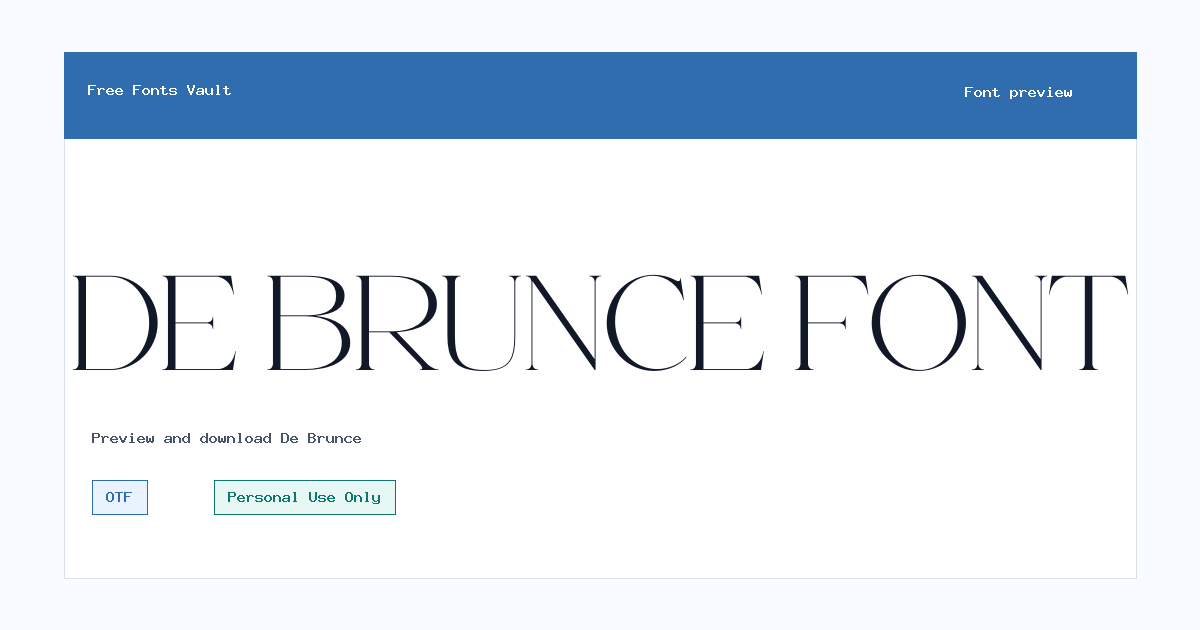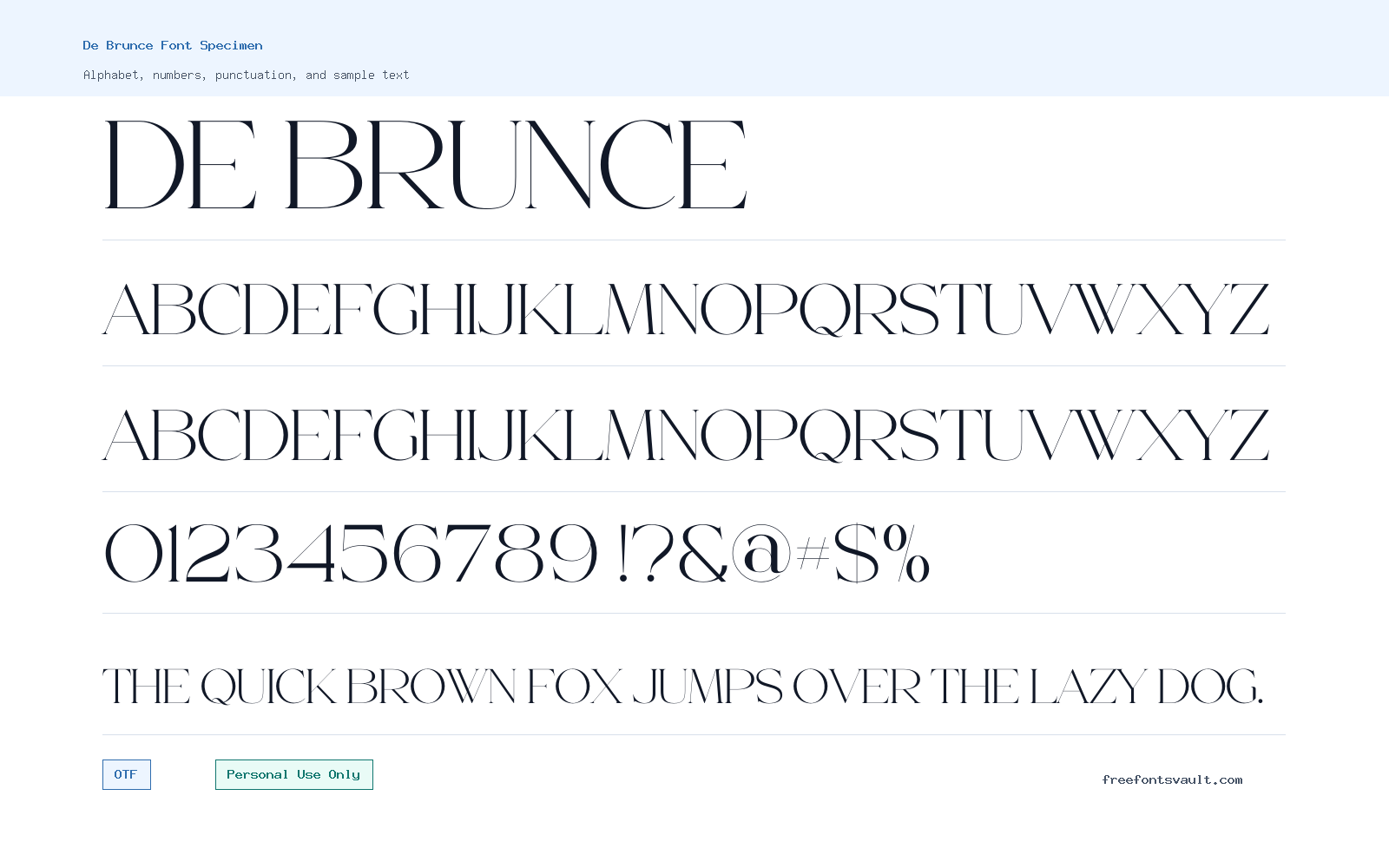
De Brunce
De Brunce font preview showing the family name
De Brunce Font
De Brunce font specimen showing alphabet, numbers, and sample text
• Designer Biham Santoso
De Brunce font.
De Brunce is a serif font family by Biham Santoso with regular and italic OTF styles. It is best approached as a display font for expressive titles, branding drafts, posters, and visual concepts where the lettering needs more character than a plain text face.
About De Brunce Font
De Brunce has the kind of serif structure that works well when a design needs a refined but noticeable voice. Because the family includes both upright and italic styles, you can build simple hierarchy without switching to a completely different font. Use the regular style for names, headlines, label text, and short statements, then bring in the italic style for accents, subtitles, quotes, or supporting words that need a softer angle.
This font is most useful in short-form design work. Try it in the preview box with brand names, poster headlines, invitation wording, product mockups, packaging concepts, social graphics, and editorial-style titles. For logo work, test the full name in uppercase, title case, and lowercase before committing, because decorative serif details can change the rhythm of a word. For longer paragraphs, pair De Brunce with a clean sans serif or a quiet text serif so the main message stays easy to read.
• Regular and italic styles for simple display hierarchy
• Serif letterforms suited to titles, names, posters, and branding drafts
• Works best in short text where the shape of each word can stand out
• Logo concepts and brand name mockups
• Poster titles and event graphics
• Editorial-style headings
• Packaging and label design drafts
• Invitation or announcement text
• Social media quote cards and promotional visuals
• Website hero headings and web layout mockups
• Moodboards, presentations, and client concept previews
De Brunce is credited to Biham Santoso. No foundry name or official designer link is listed, so avoid adding extra origin, trademark, or studio claims without confirmation.
Use De Brunce where the words are meant to be seen, not hidden inside long reading text. Start with short headlines, names, or two-to-five-word phrases. If you are making a logo, check spacing between difficult letter pairs and test the mark at small sizes. If you are designing a poster or web hero, keep the background simple and give the letters enough room. For pairing, choose a neutral sans serif for body copy, captions, menus, and descriptions; this lets De Brunce carry the visual tone without making the whole layout feel busy.
What styles are included with De Brunce?
The family has a regular upright style and an italic style, both in OTF format.
Who designed De Brunce?
De Brunce is credited to Biham Santoso.
What is De Brunce best used for?
It is best for short display text such as logos, poster titles, headings, labels, invitations, packaging mockups, and social graphics.
Is De Brunce good for body text?
It is better for headlines and short phrases. For paragraphs, pair it with a simpler font that stays readable at small sizes.
How should I pair De Brunce with another font?
Use De Brunce for the main title or brand text, then pair it with a plain sans serif or restrained text serif for body copy, navigation, captions, and small details.